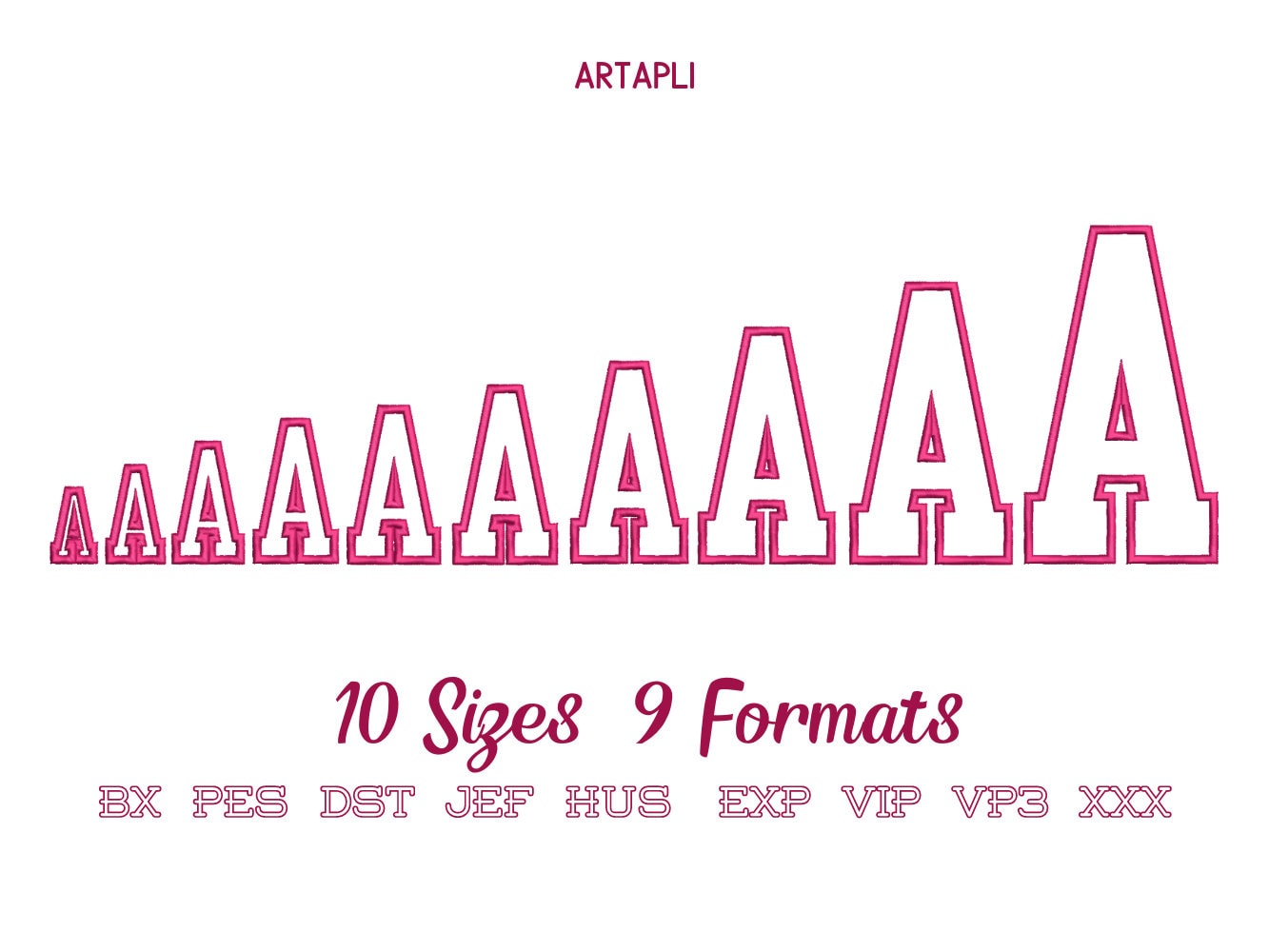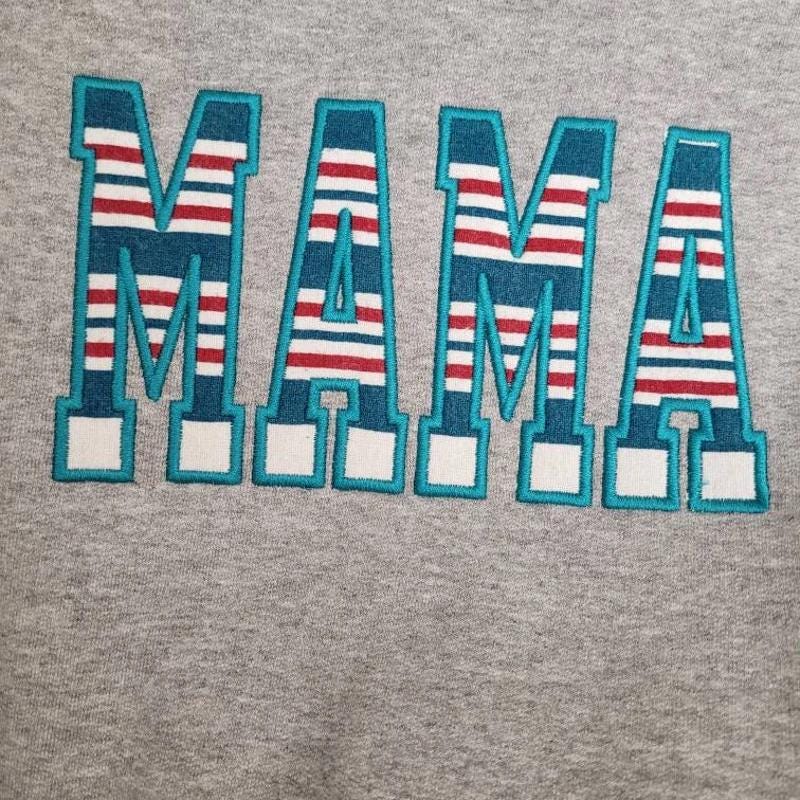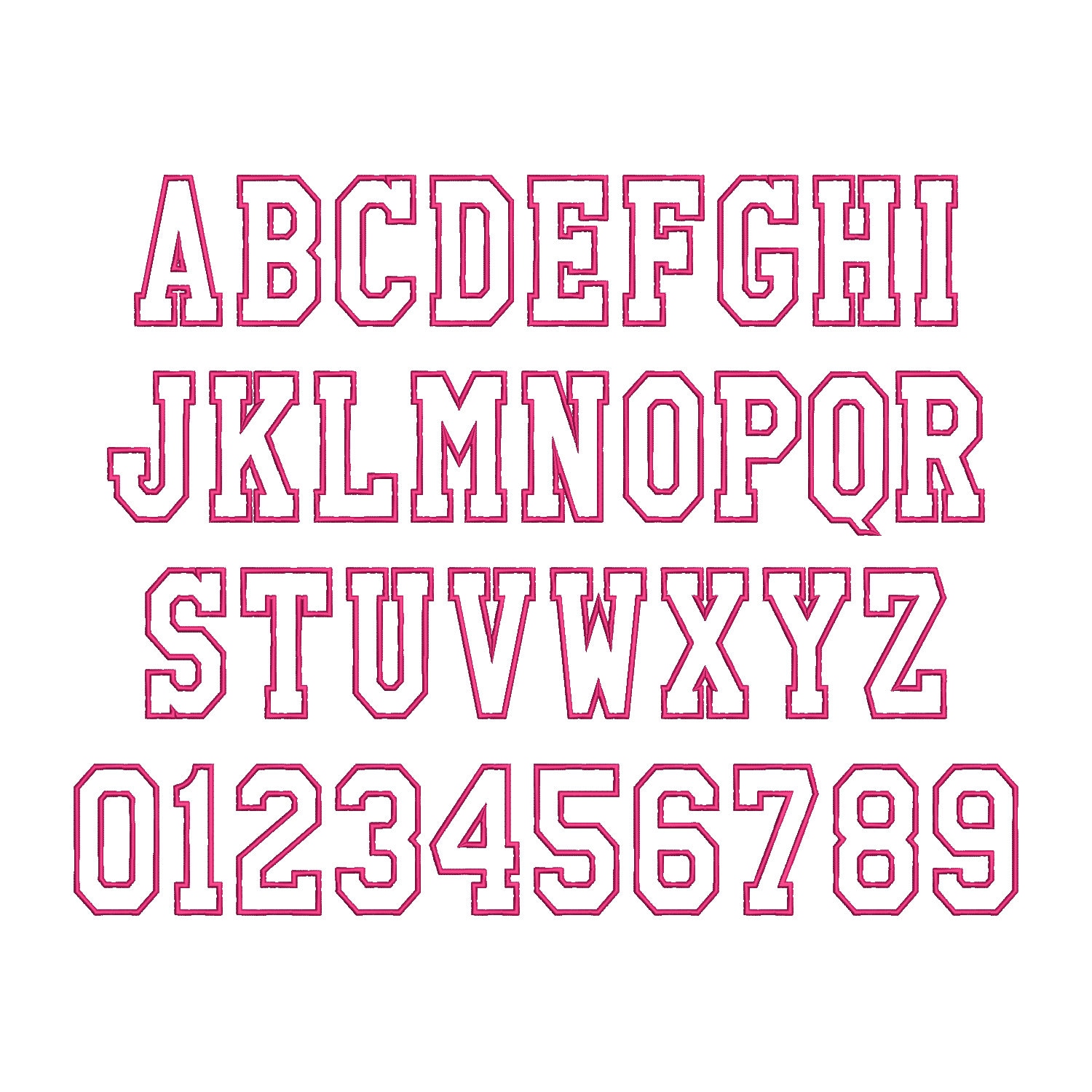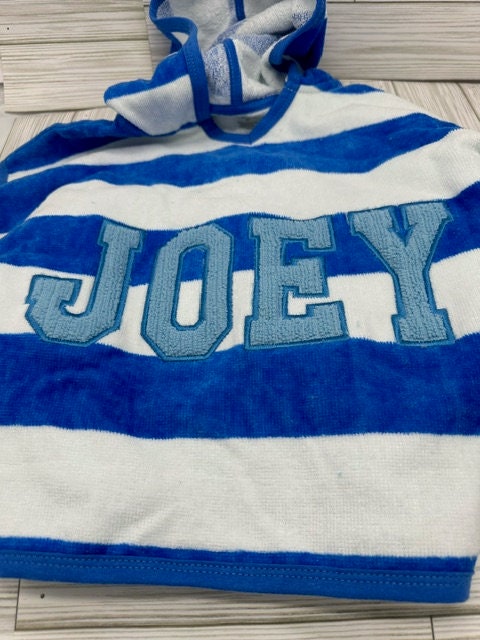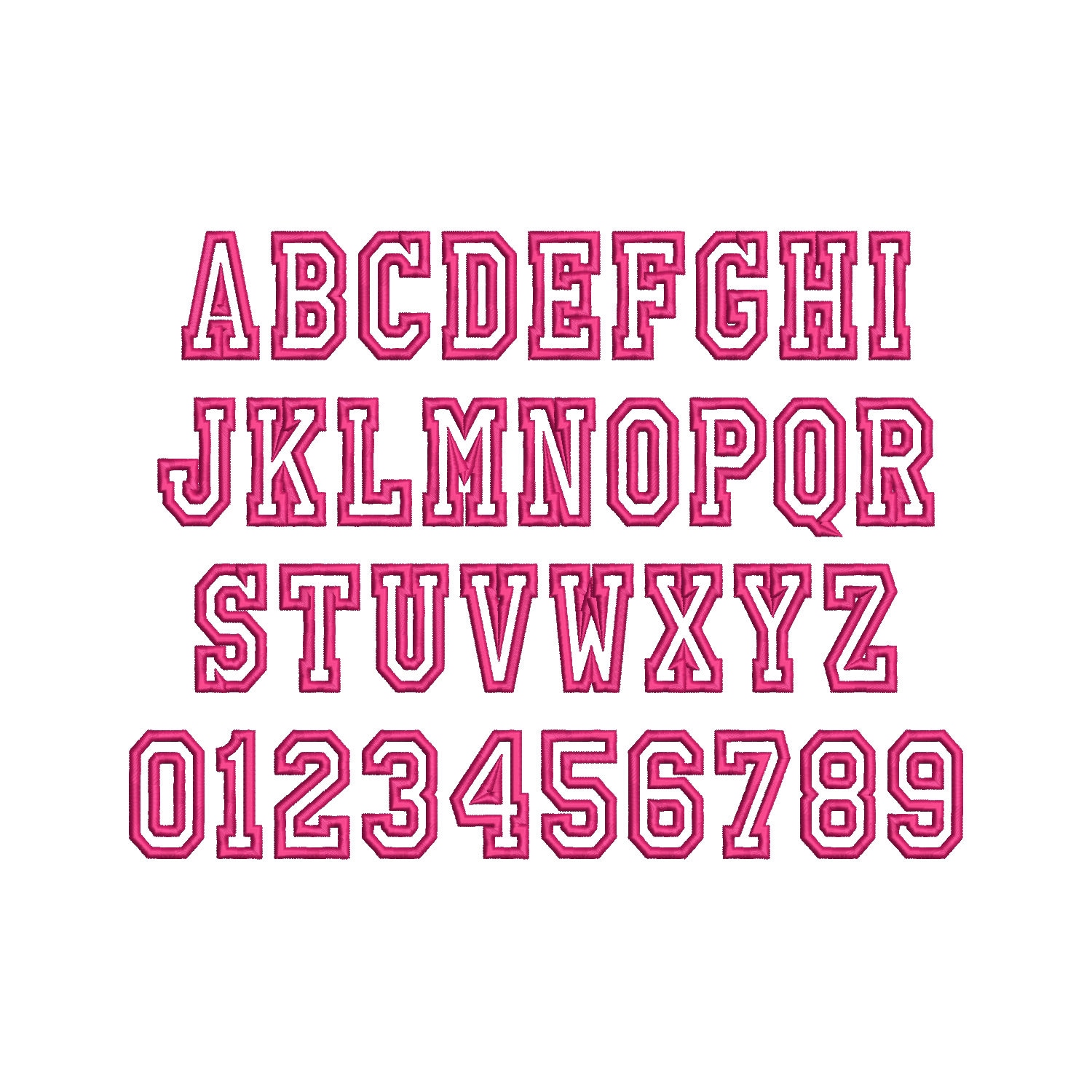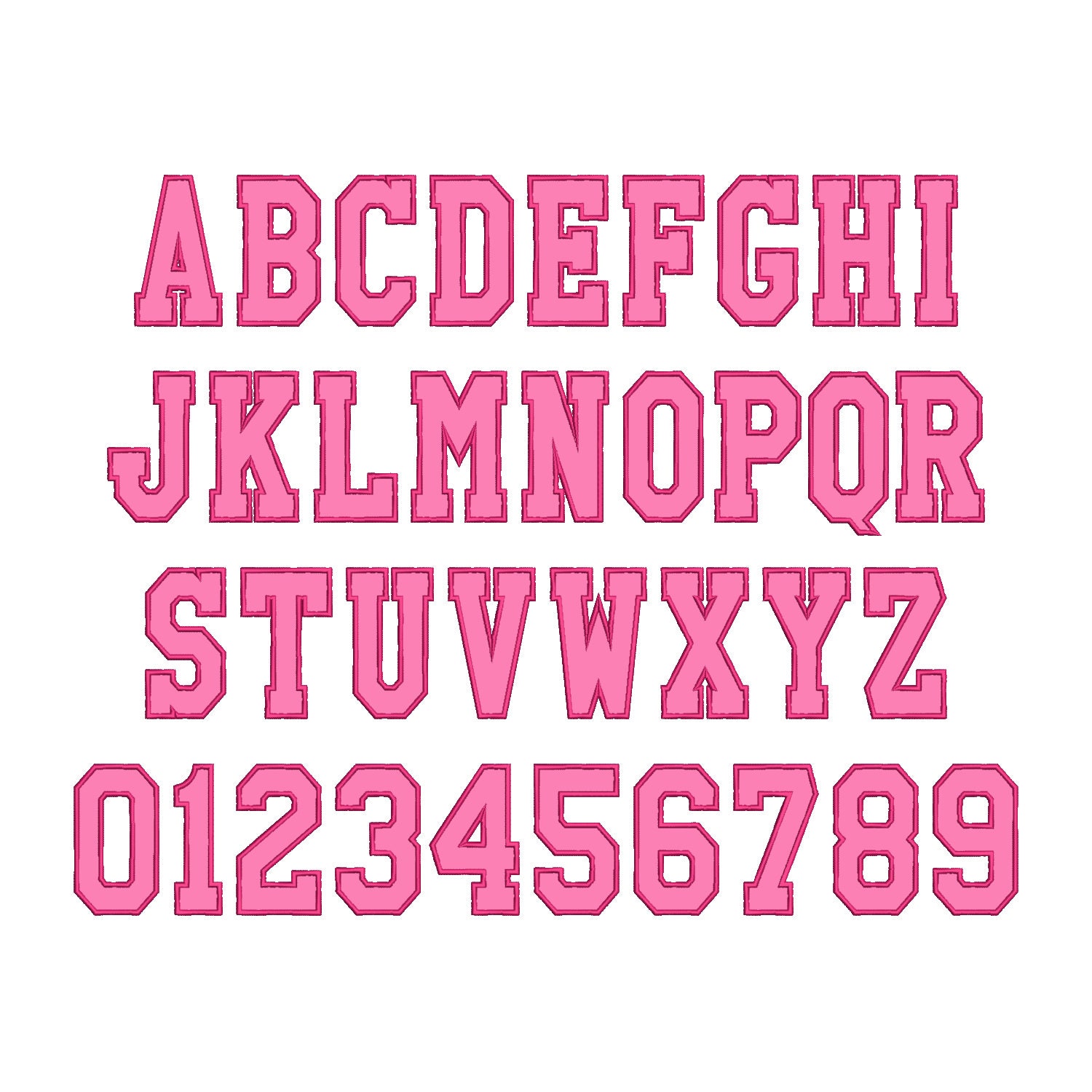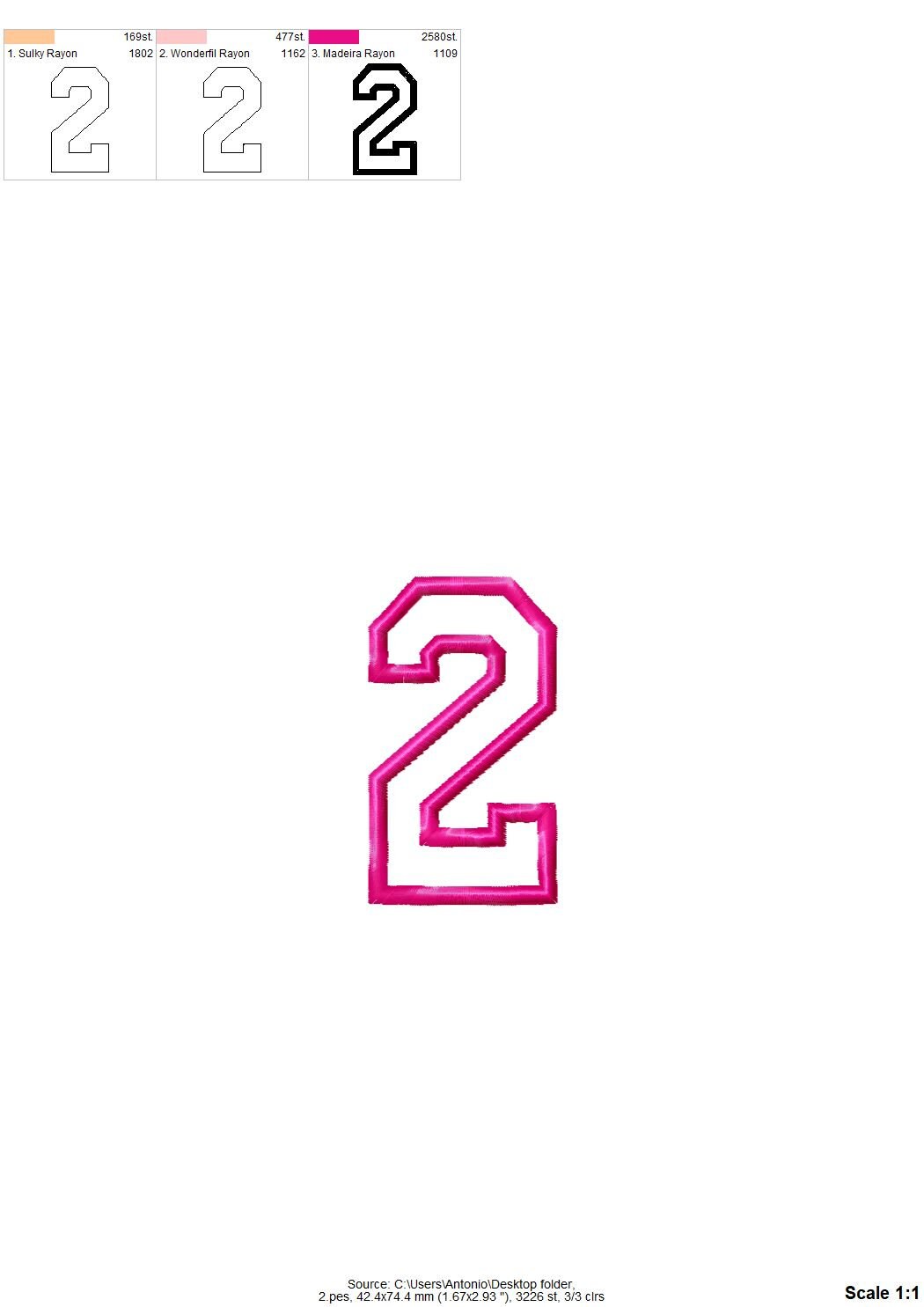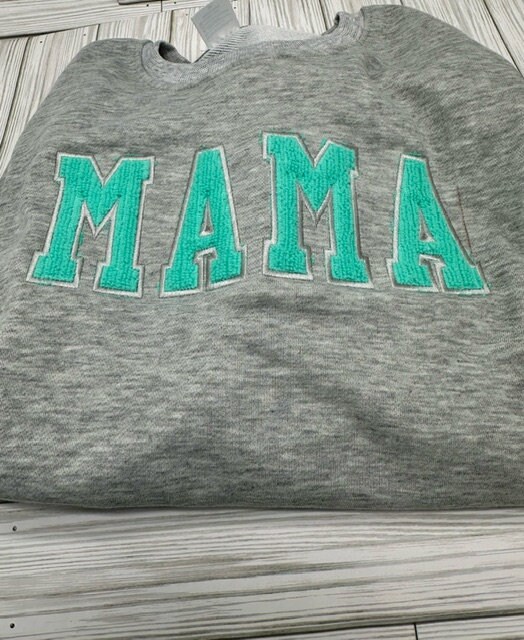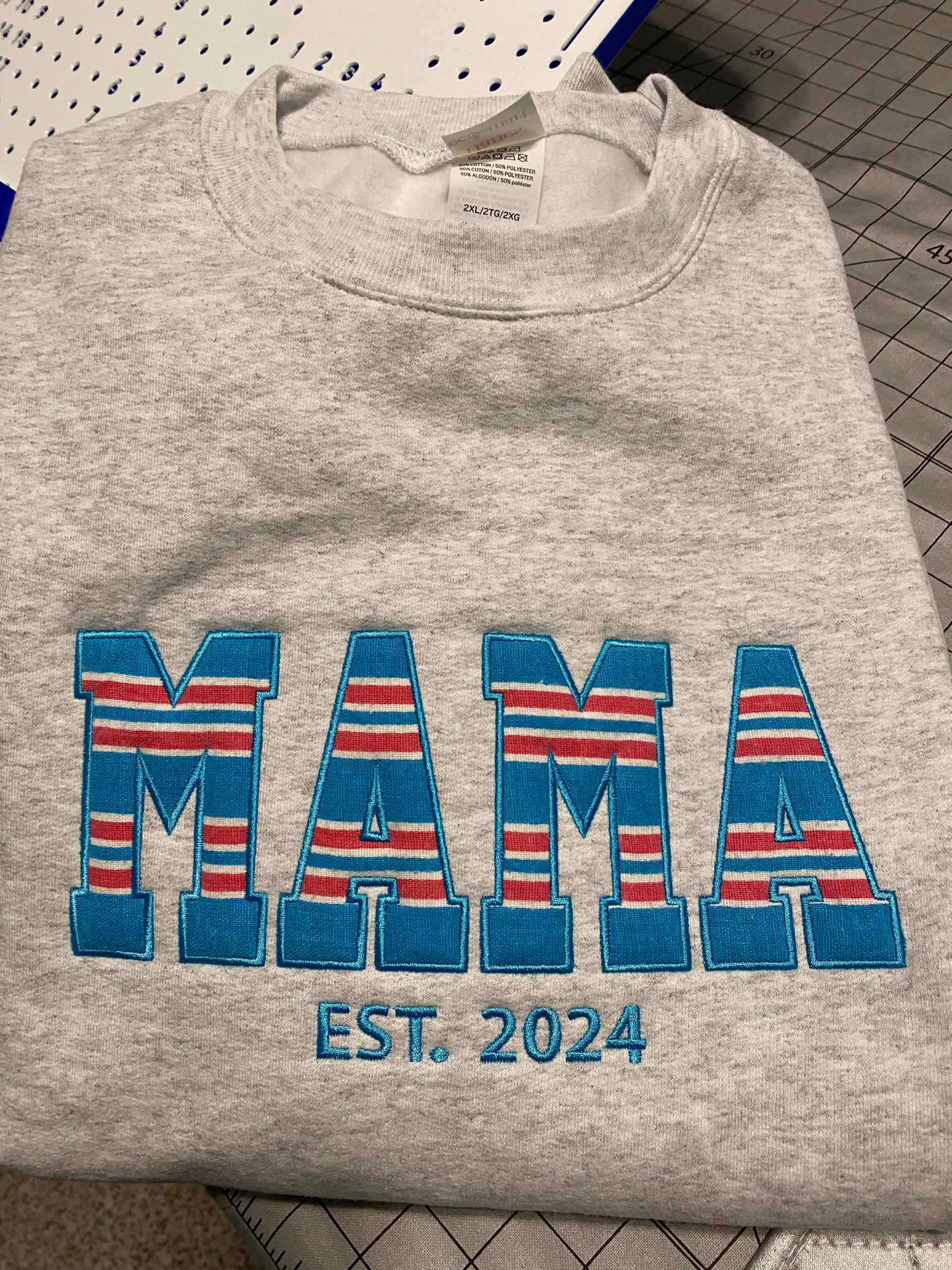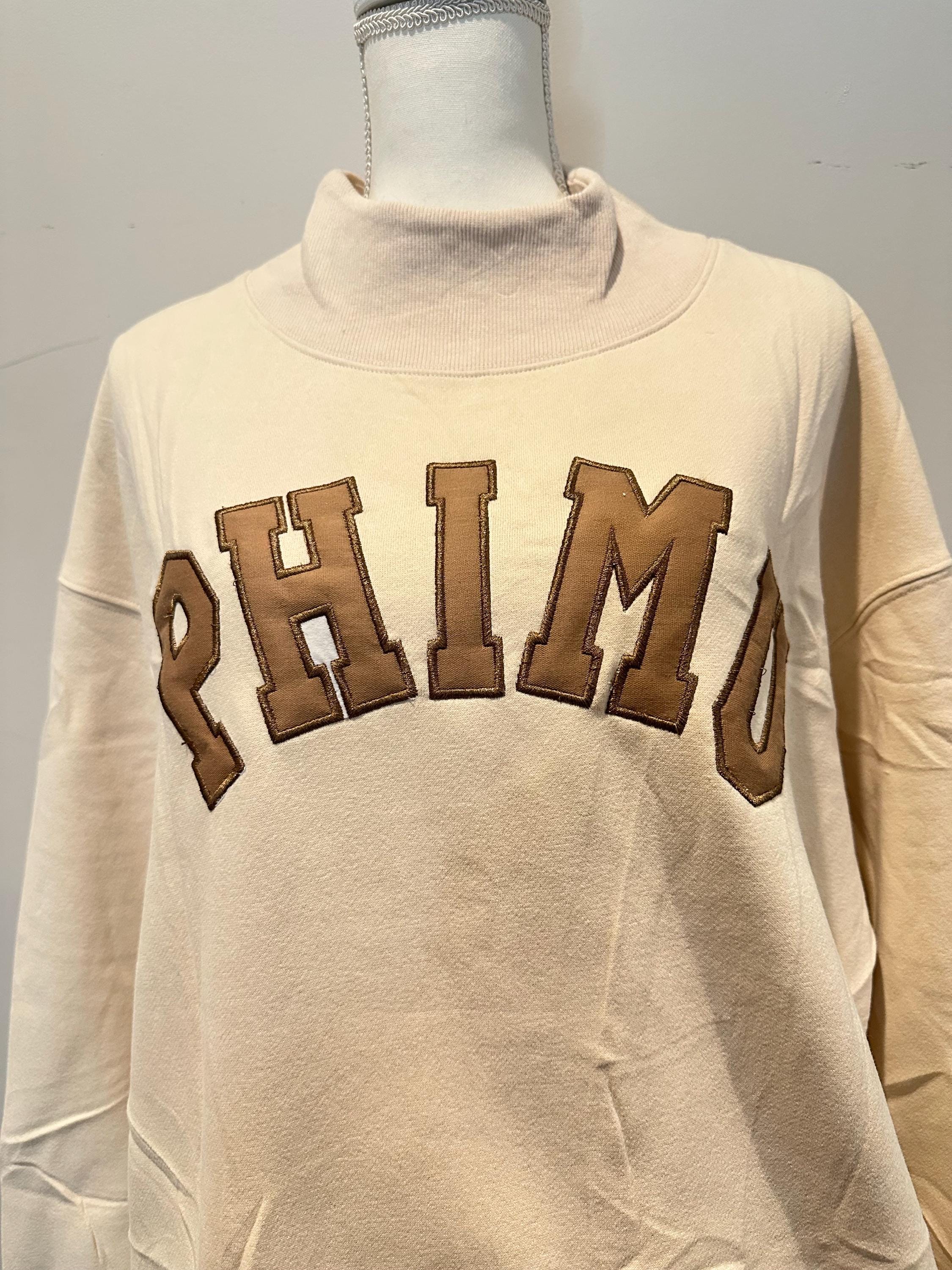
Narrow FONT applique Varsity Athletic Sport High School Team Players alphabet monogram letters machine embroidery designs Applique Font BX
Applique design
The font has a nice wide satin stitch outline.
Whole alphabet uppercase A-Z and numbers 0-9